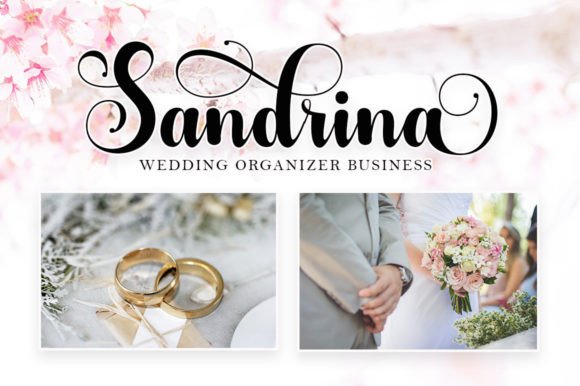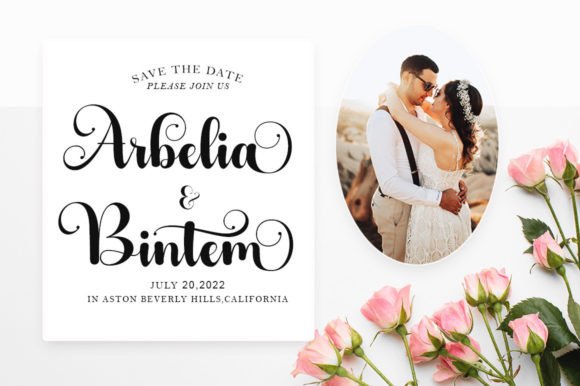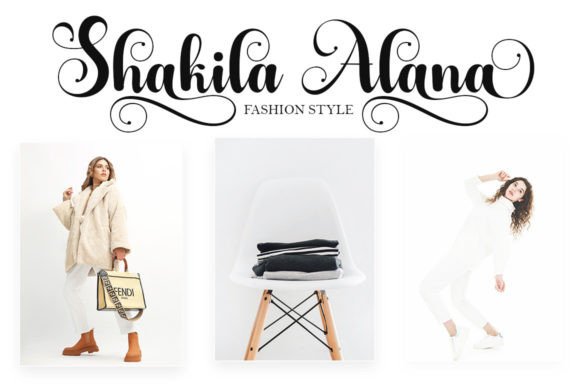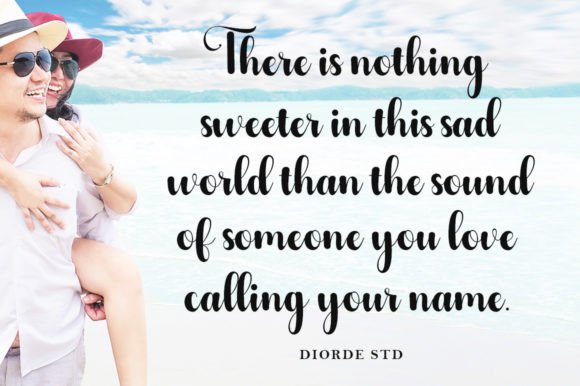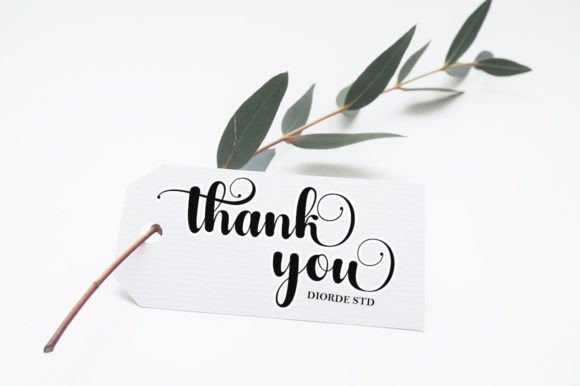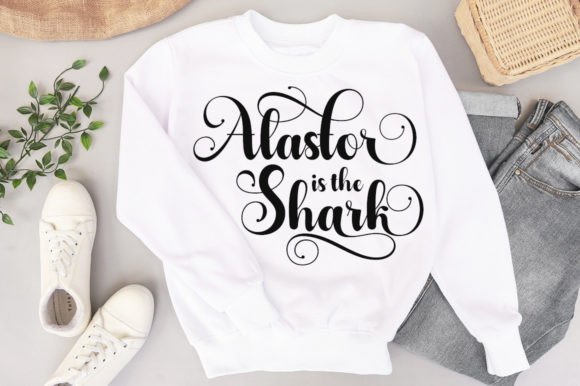
Abertan Font
About Abertan Font
“Abertan” is more than just a font; it’s a sweet and beautiful handwritten typeface that brings a touch of luxury to your design projects. With characters that dance along the baseline, this font exudes a dynamic and elegant vibe, adding a spark of opulence to any creative endeavor you wish to undertake.
The sweetness and beauty of “Abertan” are immediately apparent in its handwritten style. Each character is crafted with care, contributing to an overall aesthetic that is both charming and luxurious. This makes it an ideal choice for projects that demand a touch of sophistication and visual appeal.
The dancing baseline becomes a defining feature, adding a dynamic and lively quality to “Abertan.” This makes it suitable for a range of design applications, from branding to invitations, where the font’s luxurious spark can make a significant impact.
Whether used in digital graphics, print materials, or any creative context, “Abertan” becomes a font that elevates the visual appeal of your designs. Its ability to convey both sweetness and luxury makes it versatile and adaptable to various design needs.
In summary, “Abertan” is not just a font; it’s a design companion that brings a sweet and luxurious touch to your creative projects. Let it be the choice for adding a dynamic spark to your designs, making them stand out with elegance and charm. With “Abertan,” every project becomes an opportunity to showcase the beauty of handwritten luxury.